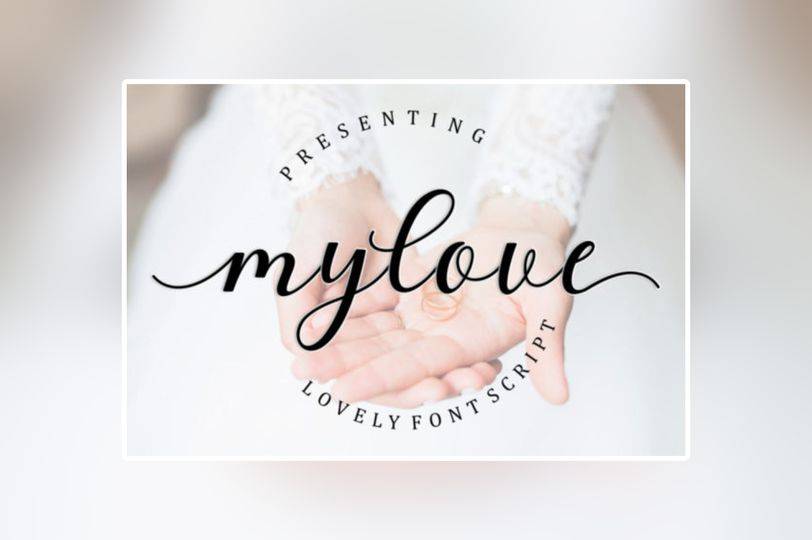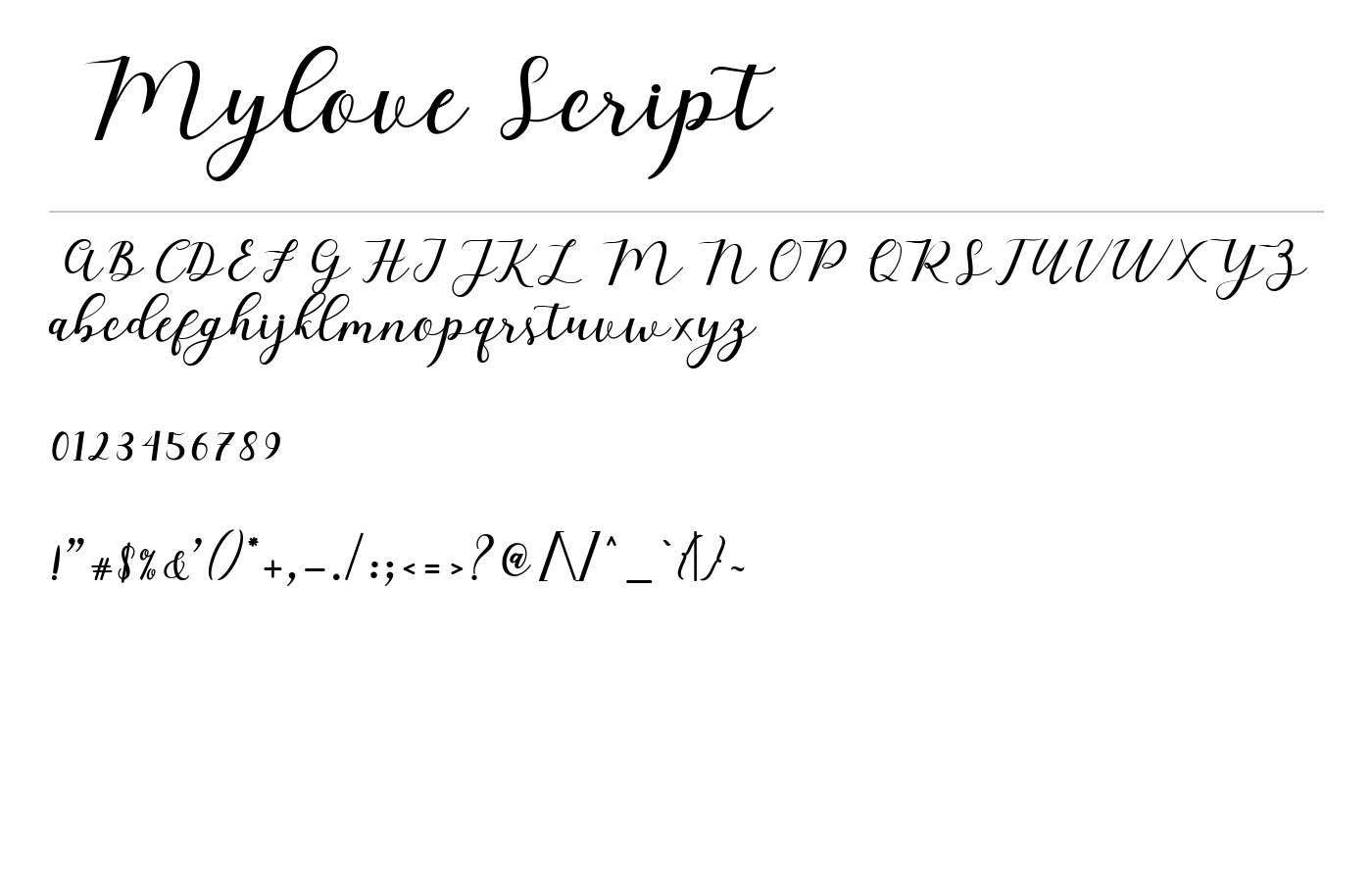
Mylove is an elegant script font with graceful, flowing strokes and a delicate, handwritten feel. Its slender letterforms and subtle variations in line weight make it perfect for romantic or sophisticated designs, lending a personal touch to wedding invitations, branding, or stylish packaging. This font's refined yet approachable style brings charm and warmth to any creative project.
Mylove Font
About Mylove Font
| Font family | Mylove Font |
| Release date | 2021-10-02 |
| Designer | Creative Fabrica |